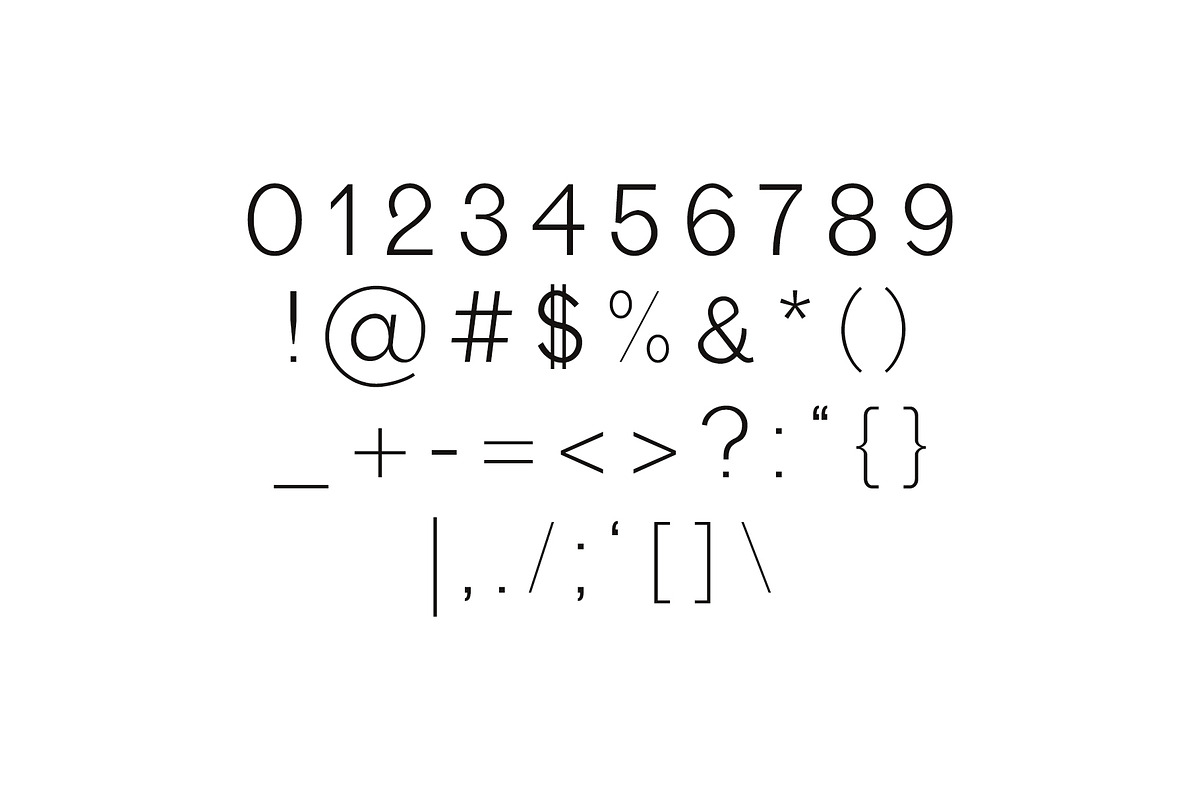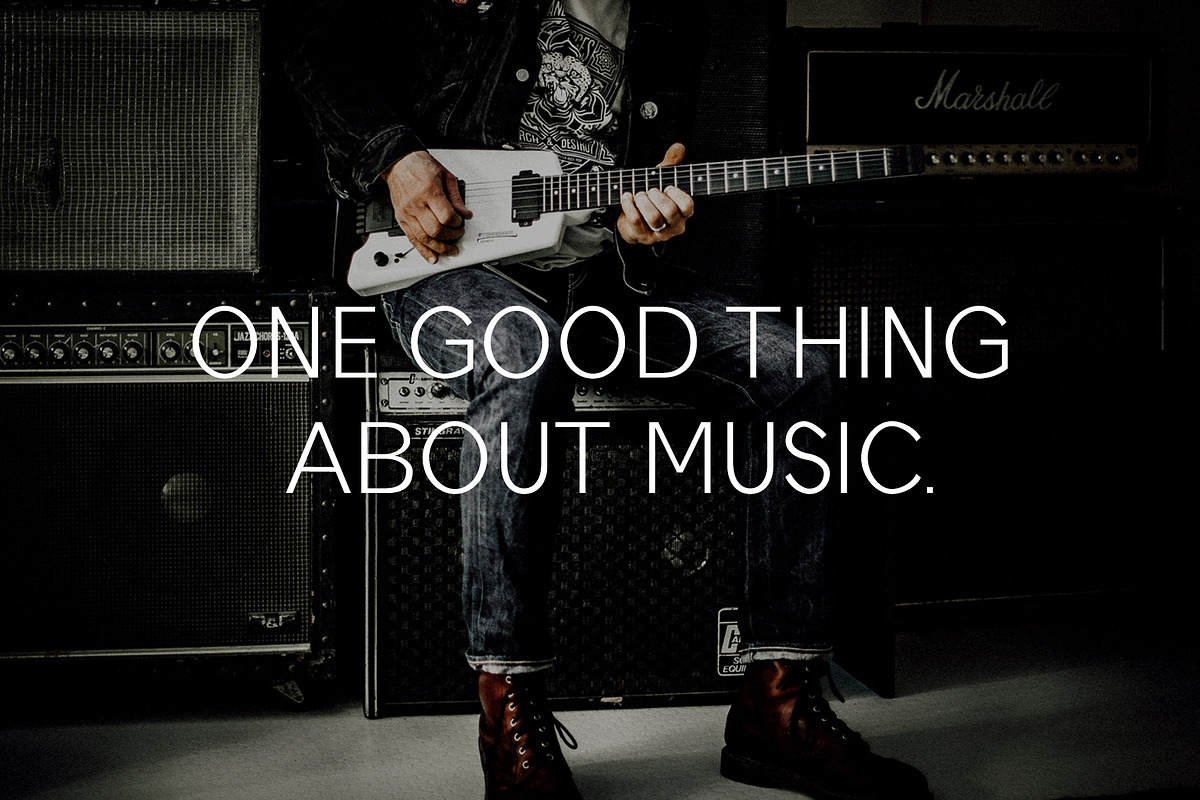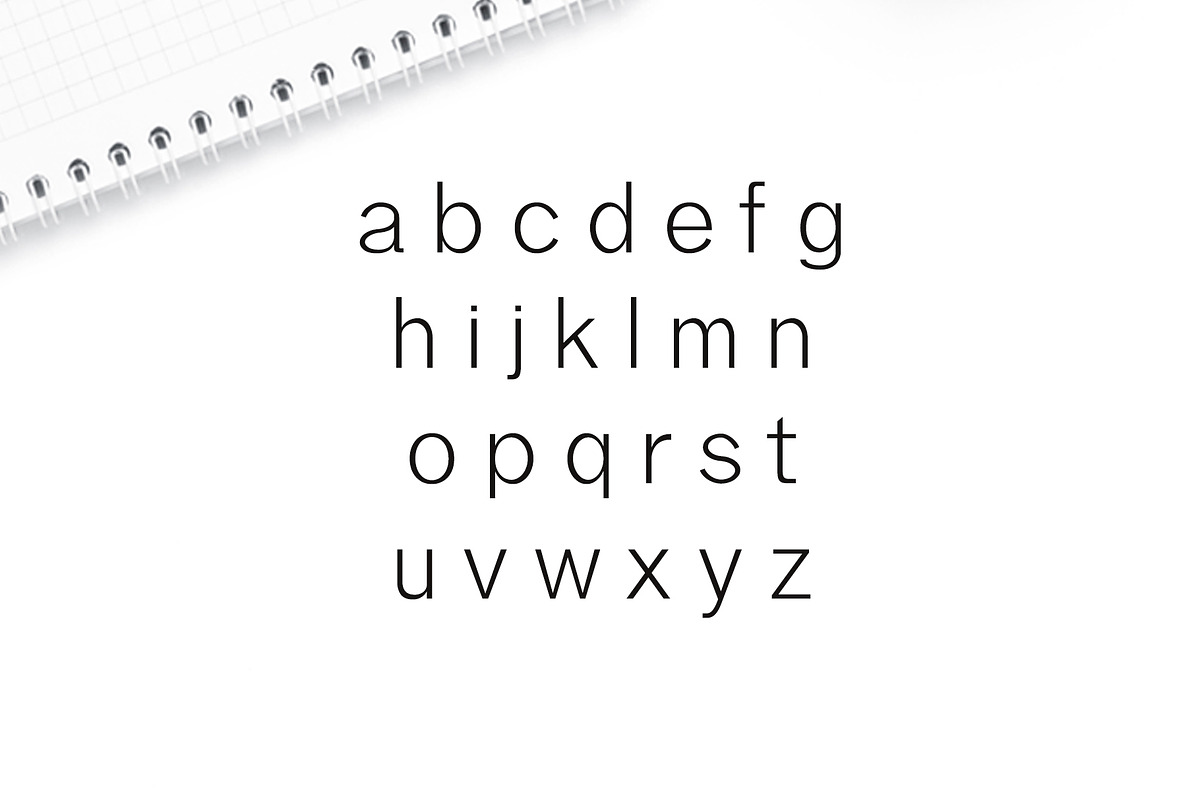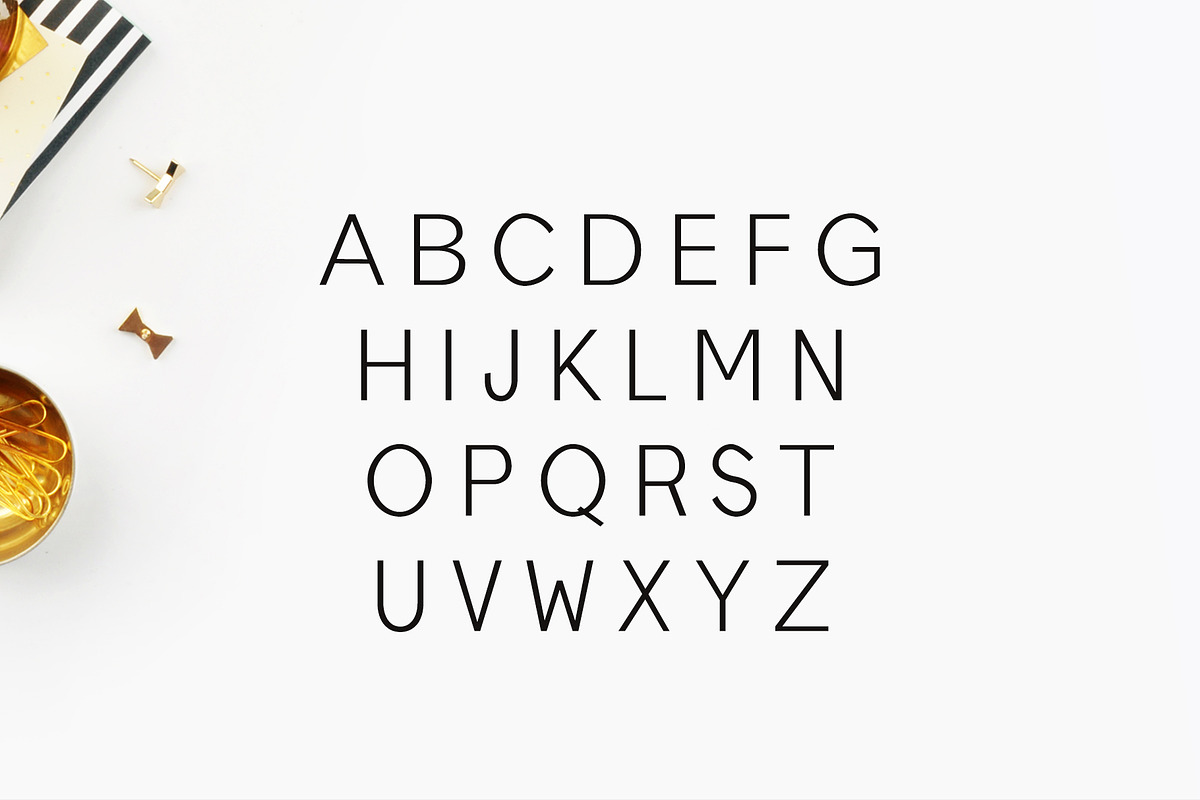
Edina Sans Serif Minimal Font Pack
Edina Sans Serif Minimal Font Pack by Creativetacos is a font selected for branding, posters, packaging, typography.
- Regular, Outline, Bold, Extra Bold and Black Weights
Why Edina Sans Serif Minimal Font Pack is worth a look
Edina Sans Serif Minimal Font Pack by Creativetacos fits naturally into Branding, posters, packaging, typography.